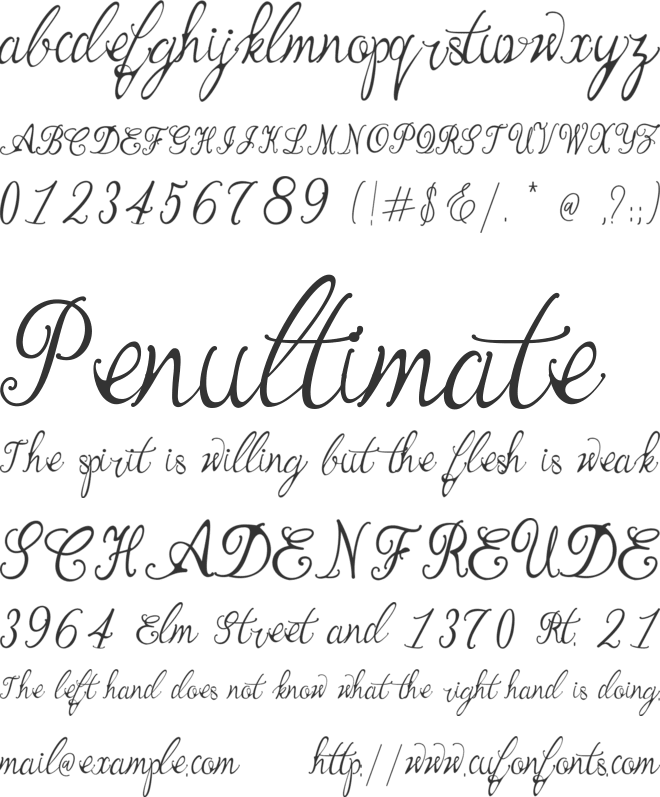
Manhattan Script Font
Manhattan Script Font is a an authentic and unique signature handwritten font with a natural and elegant caligraphy look. It can be used in a wide range of design projects and is easy to use. Manhattan Script comes with uppercase, lowercase, standard punctuation, and numbers. Manhattan Script has variety of unique handmade-look outcomes that can be combined together with a large range of designs.